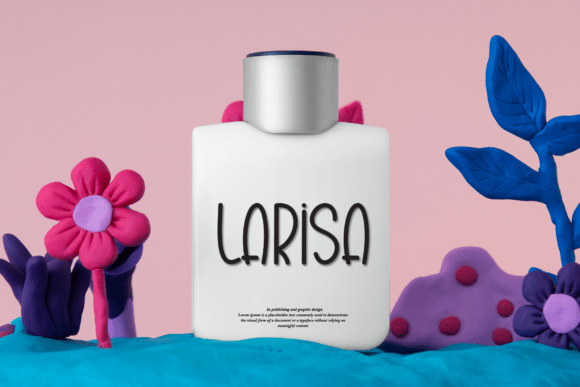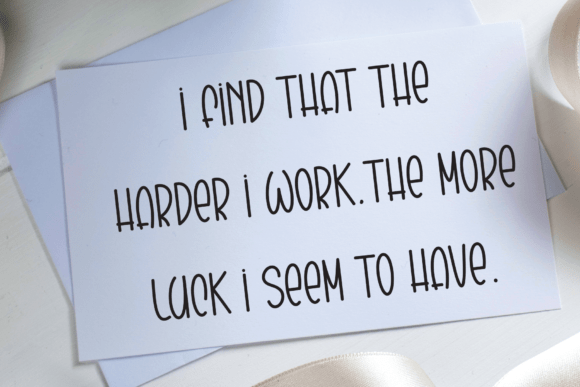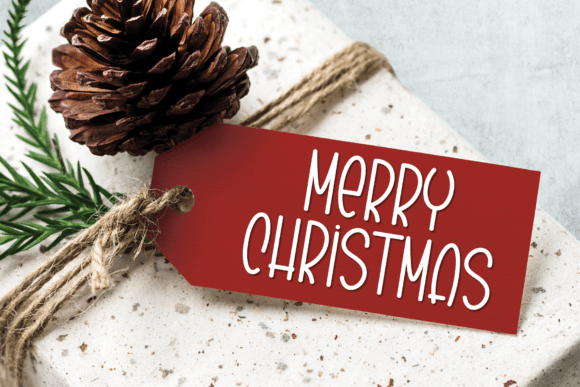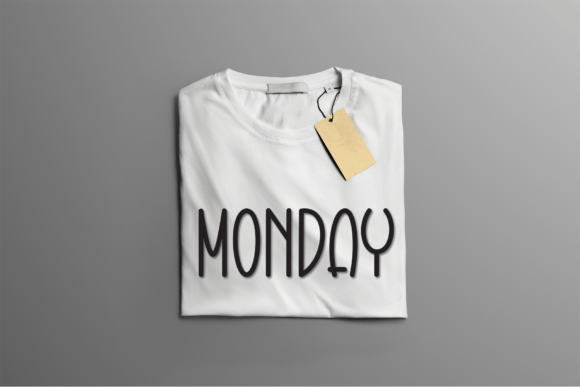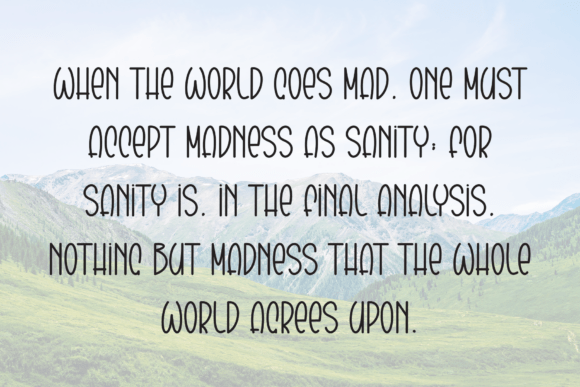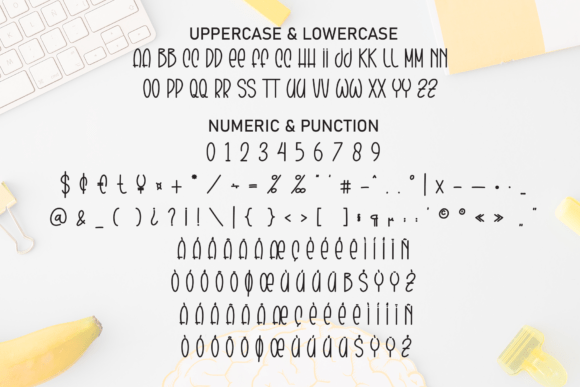
Creative Wednesday Font – Free Download
Introduction to Creative Wednesday Font
Wednesday is a casual display font that blends modern simplicity with a playful, approachable vibe.
Featuring clean shapes, soft edges, and well-balanced letterforms, it captures the charm of relaxed design while maintaining clarity and style Ideal for posters, branding, packaging, and social media graphics, it adds a fresh and friendly touch to any project.
Key Features of Creative Wednesday Font